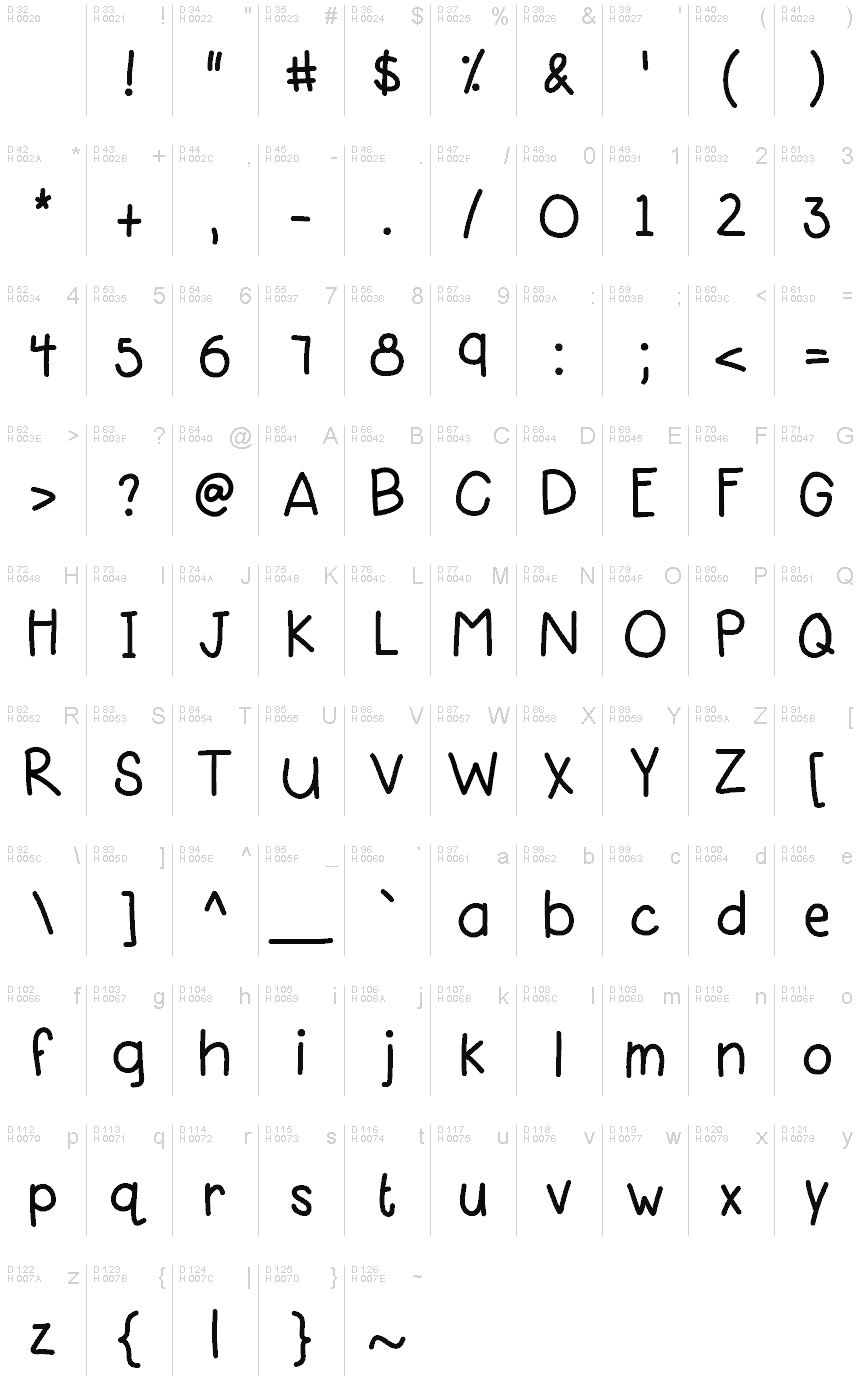
KB Pink Lipgloss by Khrys Bosland is a free handwritten font with tall, loosely drawn letters and softly rounded stroke ends. The changing letter heights keep the line pleasantly unsettled.
Children's book covers are a natural home for its open shapes and friendly informality, with party invitations and classroom posters offering similarly lively and informal settings. The lipstick-name association and rounded, hand-drawn contours also suit beauty packaging and boutique branding, where the lettering can echo doodles, hearts, or cosmetic illustrations.